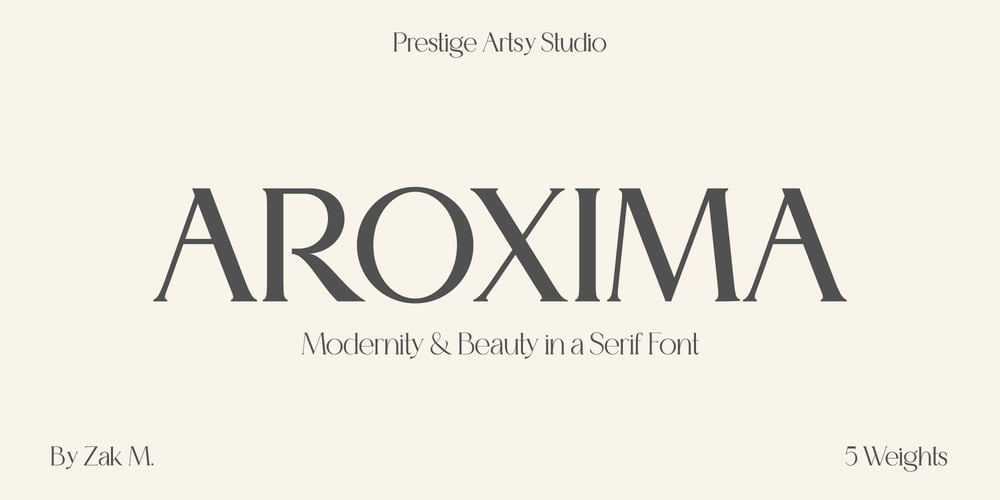
Aroxima
Aroxima font
Aroxima Font Family was designed by Zak M and published by Prestige Artsy Studio. Aroxima contains 5 styles and family package options. Introducing the stunning modern serif font family, Aroxima Serif. This font family takes the traditional serif design and puts a fresh, contemporary spin on it. Avenir Serif features clean, crisp lines and sharp edges that give it a sleek and sophisticated look. Its high contrast between thick and thin strokes create a beautiful visual rhythm that draws the eye in and makes for easy reading.Aroxima Serif comes in a variety of weights, from Regular to Black, making it a versatile option for any design project. Its elegant and refined appearance makes it the perfect choice for branding materials, editorial layouts, and websites. Avenir Serif also includes a range of special characters and ligatures for added flair and customization.Overall, Aroxima Serif is a modern serif font family that combines classic design elements with a contemporary twist, making it a timeless choice for any design project.